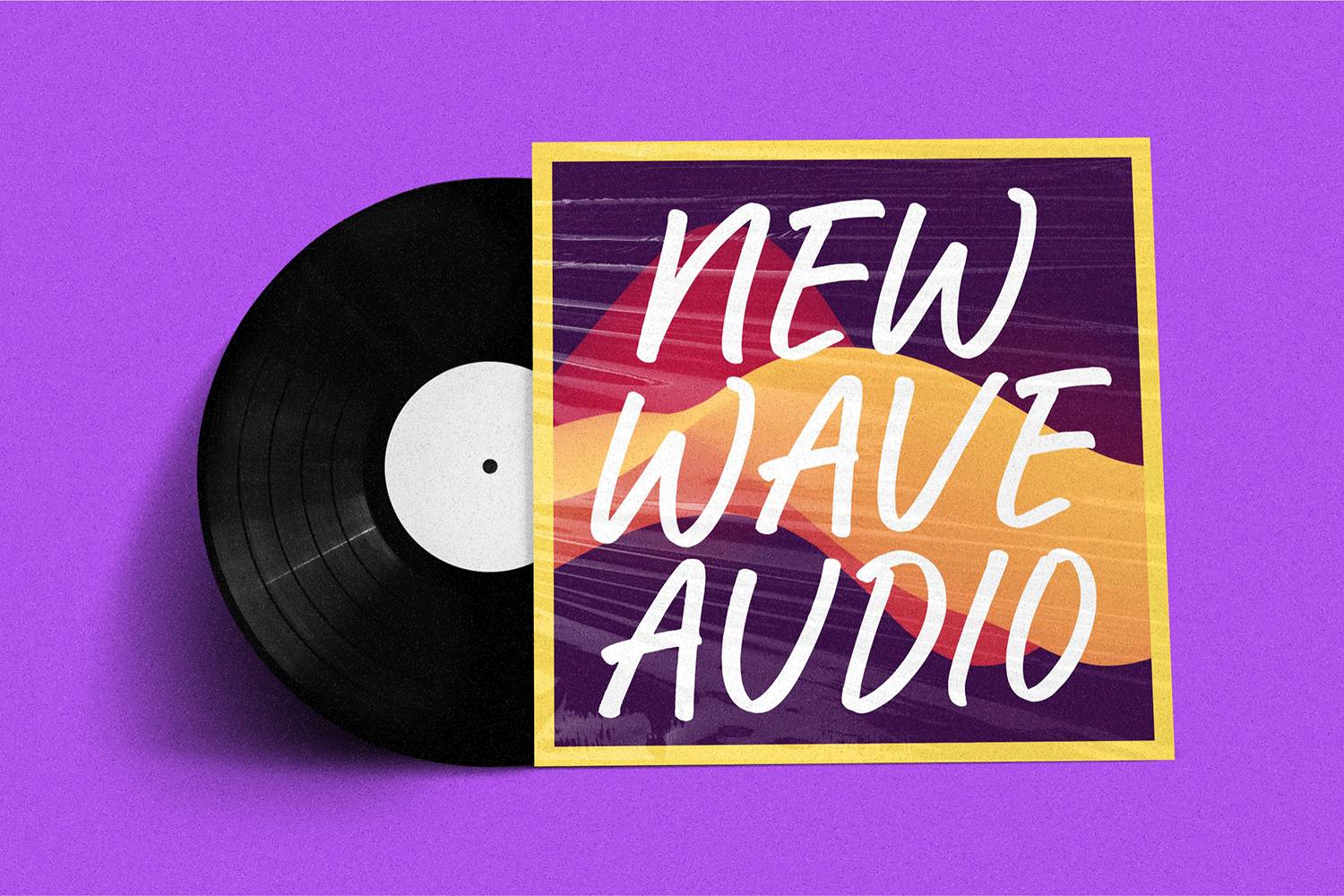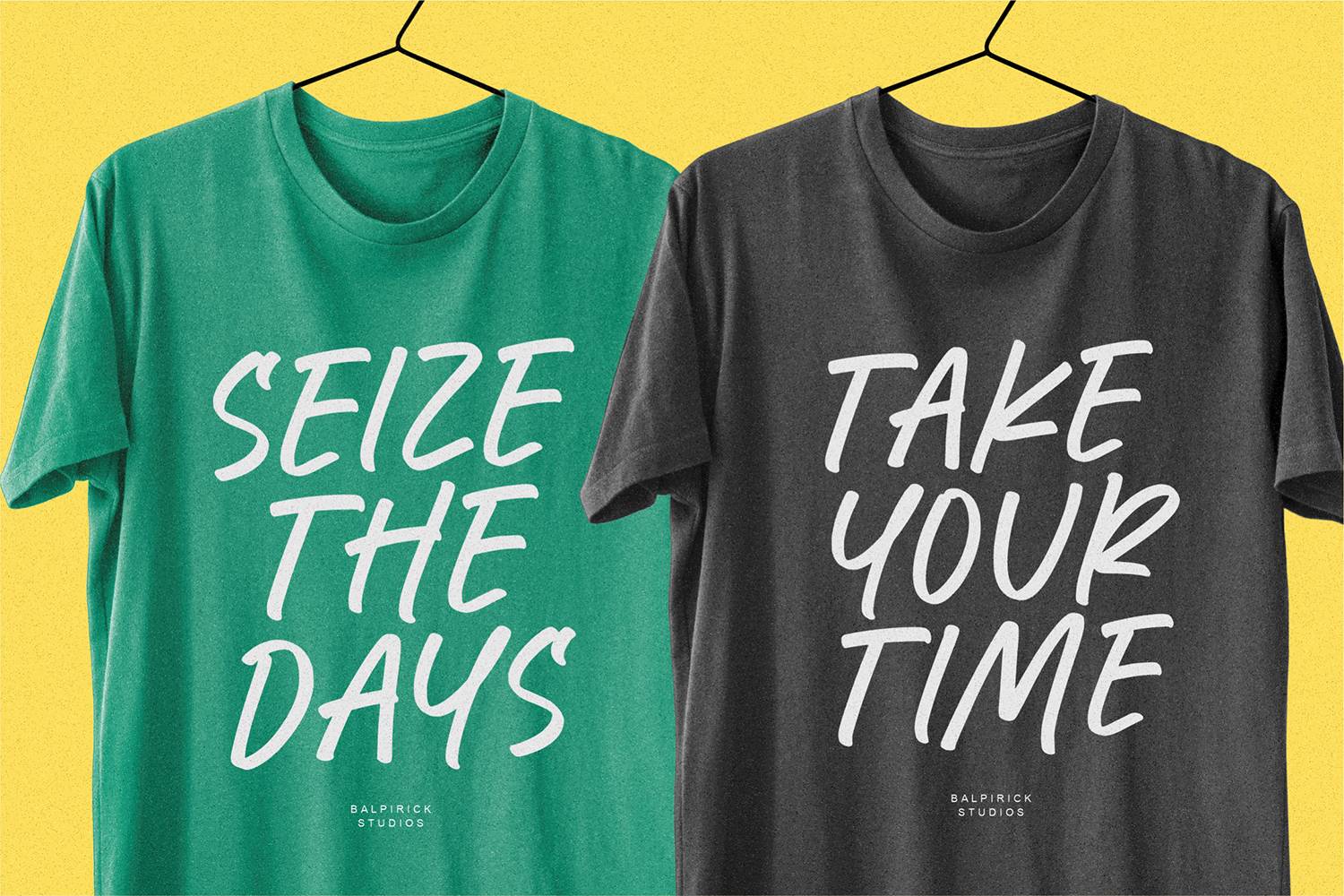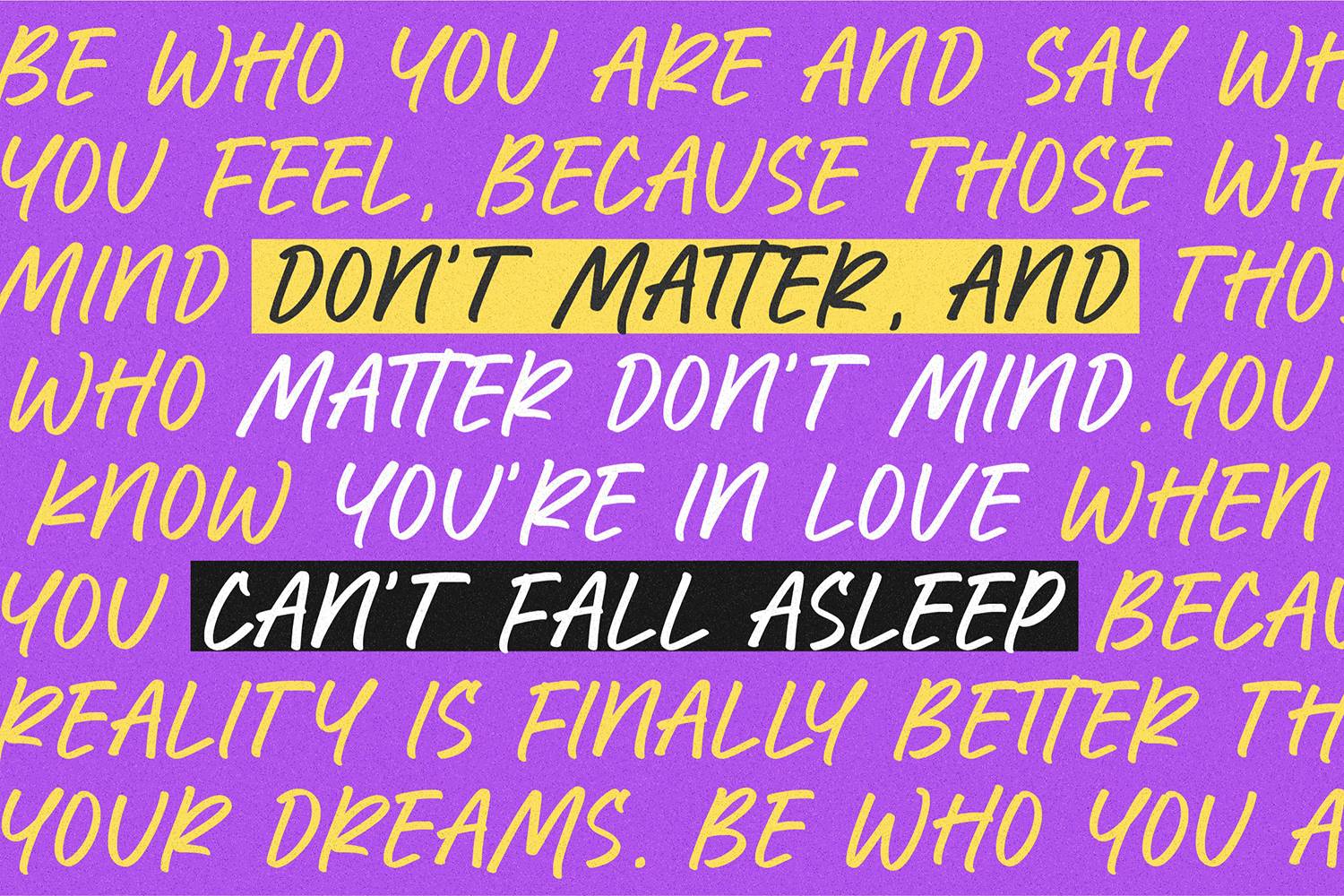
Write Marker is a casual, handwritten script font that mimics natural marker pen strokes with its smooth, slightly slanted letters and moderate contrast. Its playful and informal style makes it perfect for personal branding, creative projects, and youthful designs that require a friendly and approachable vibe. This font stands out in headlines, packaging, or social media graphics where a dynamic, authentic look is desired.
Write Marker Font